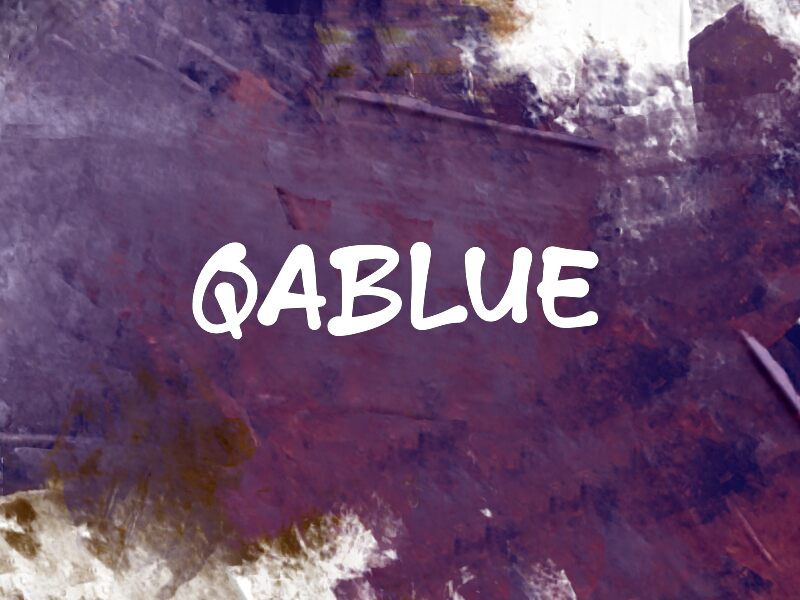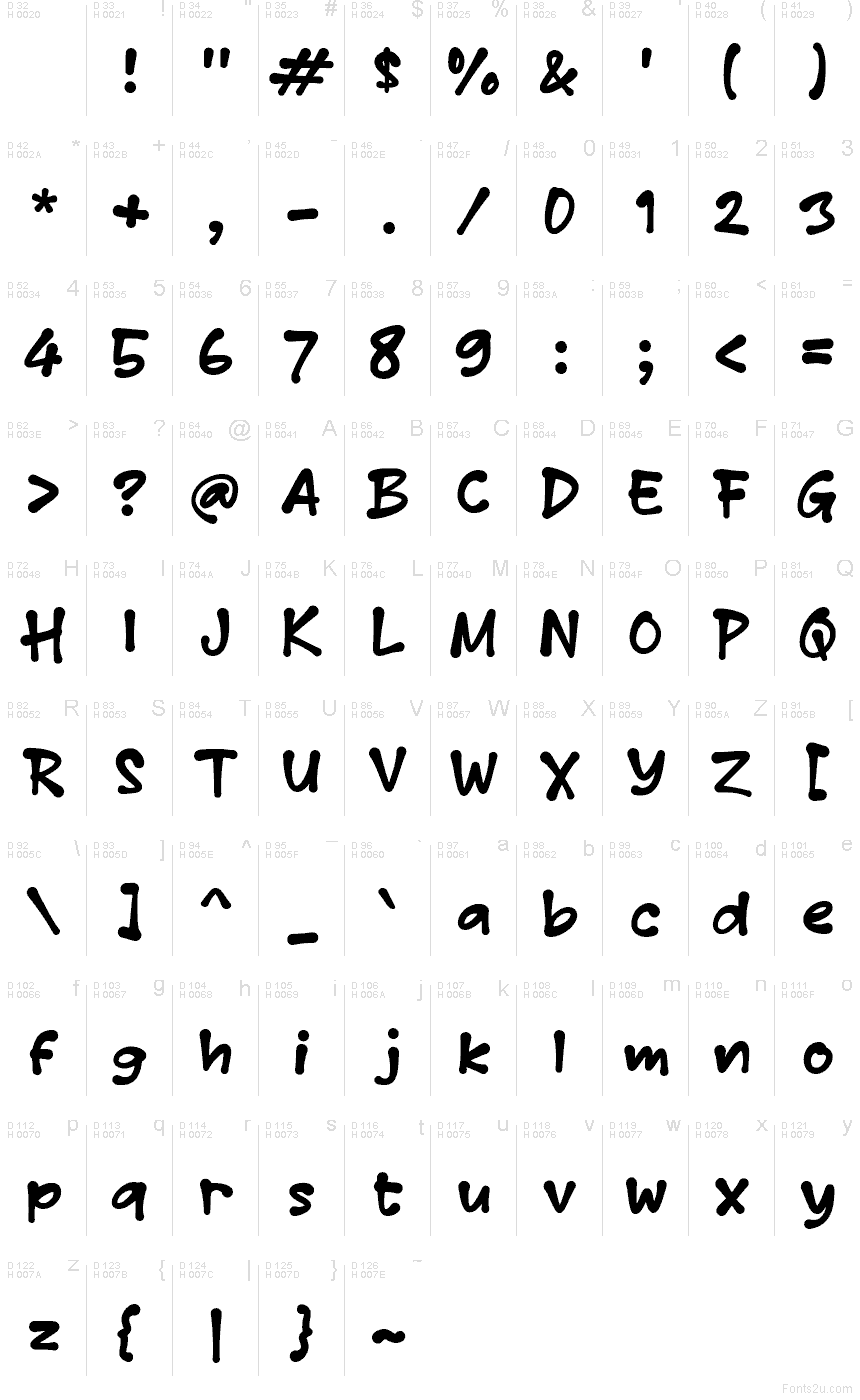
QABLUE
Qablue font by wep is a free brush font that feels like it’s been painted in thick, inky strokes straight onto the screen. The letters are rounded, bold, and slightly uneven in a way that feels friendly rather than messy, like quick signage on a café chalkboard or a handmade label at a market stall. Its solid, inky fills and smooth curves give it a warm, tactile character that holds up even at smaller sizes.
Using Qablue, you get a casual, hand-painted energy that works beautifully for logos, kids’ products, social media graphics, posters, stickers, and playful packaging. This free font shines on bold titles and short phrases, where its chunky brush rhythm can really breathe. For a simple pairing, match Qablue with a clean sans serif for body copy to keep the hand-drawn personality in the spotlight.